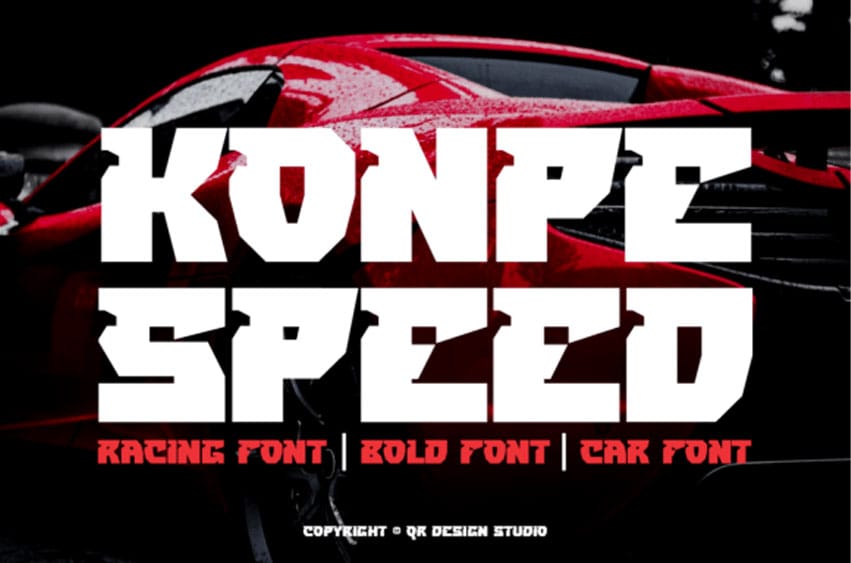
Konpe Speed Font is a bold and assertive sans-serif font.
Regardless of the topic, this font will be an invaluable asset to your font library, as it has the potential to elevate any creation.